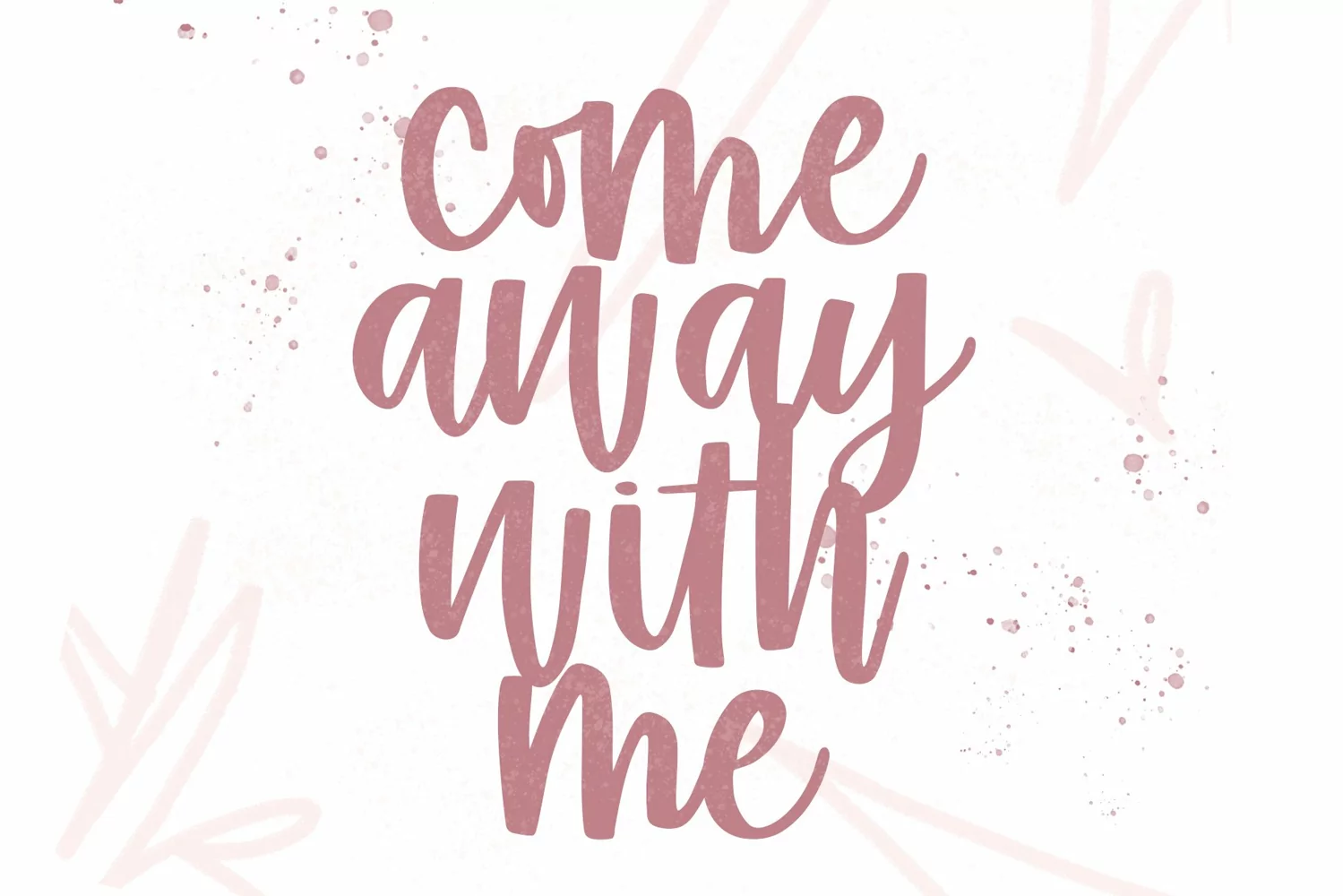
Islander - Hand Lettered Script font - crafting font
This font is hand lettered! Use this fun & cute font for all of your creative needs! Making SVGs, graphic
design projects, shirts, wood signs, cards, social media, stickers, blog posts, and
much more! This is a smooth font - perfect for cut machines like Cricut and Silhouette!
This font has 37 ligatures = lots of cuties to add a fun & hand lettered look to your projects.